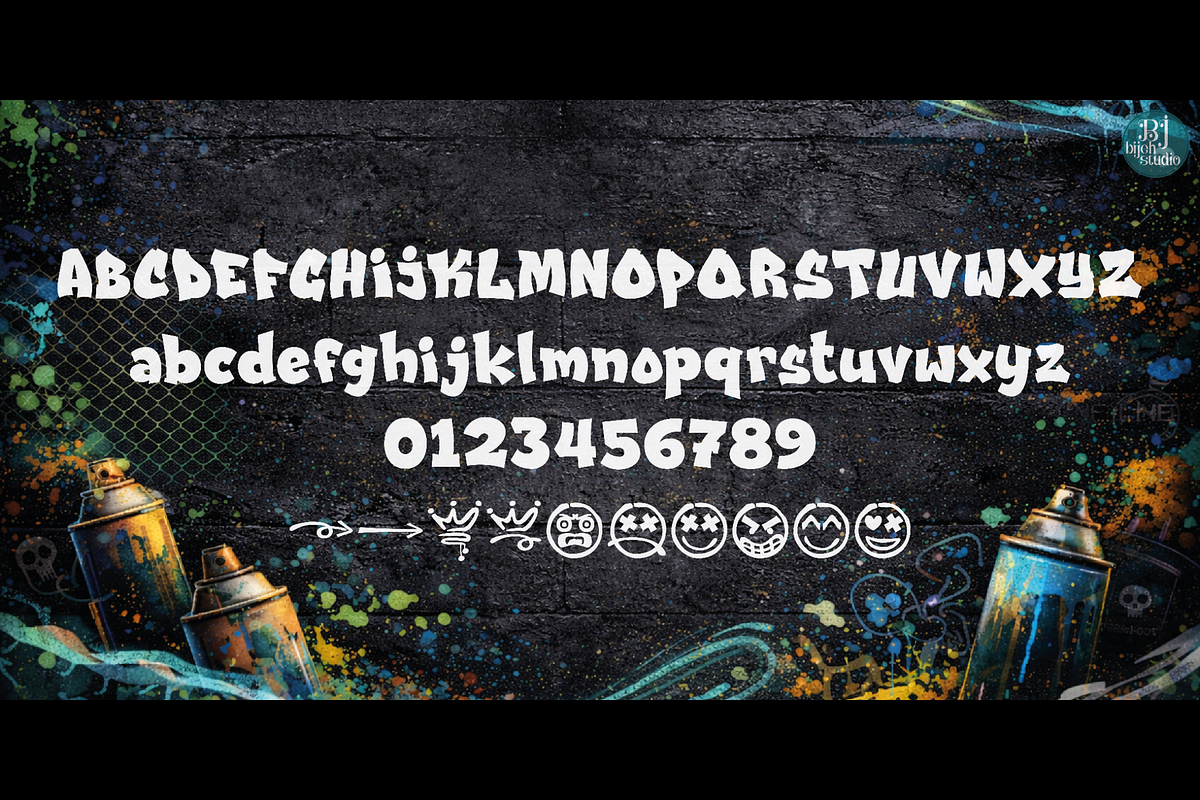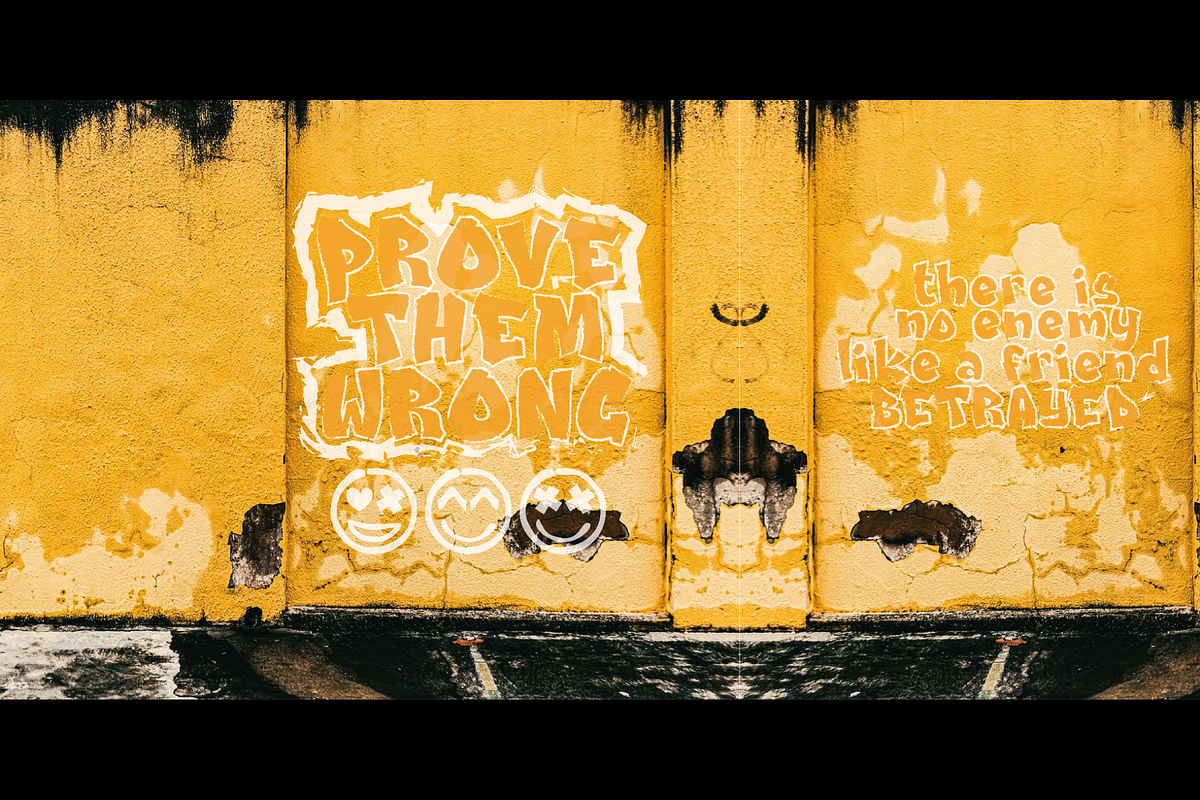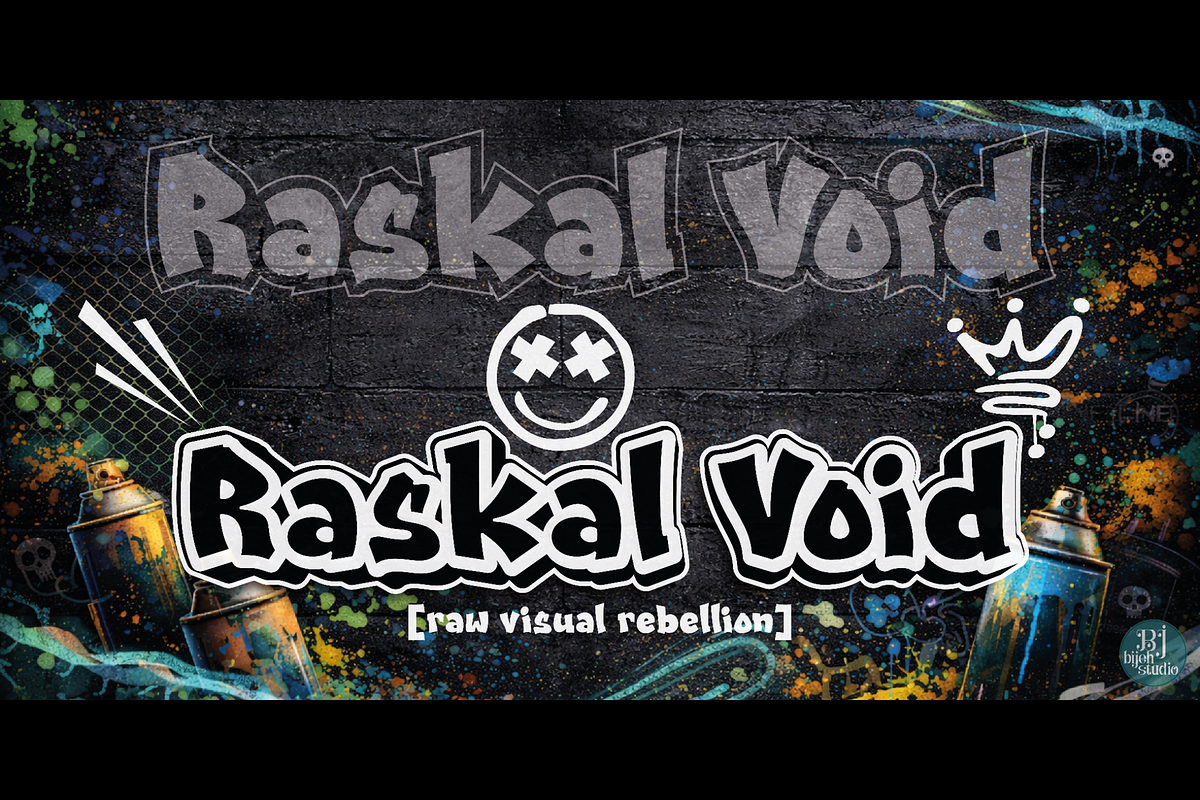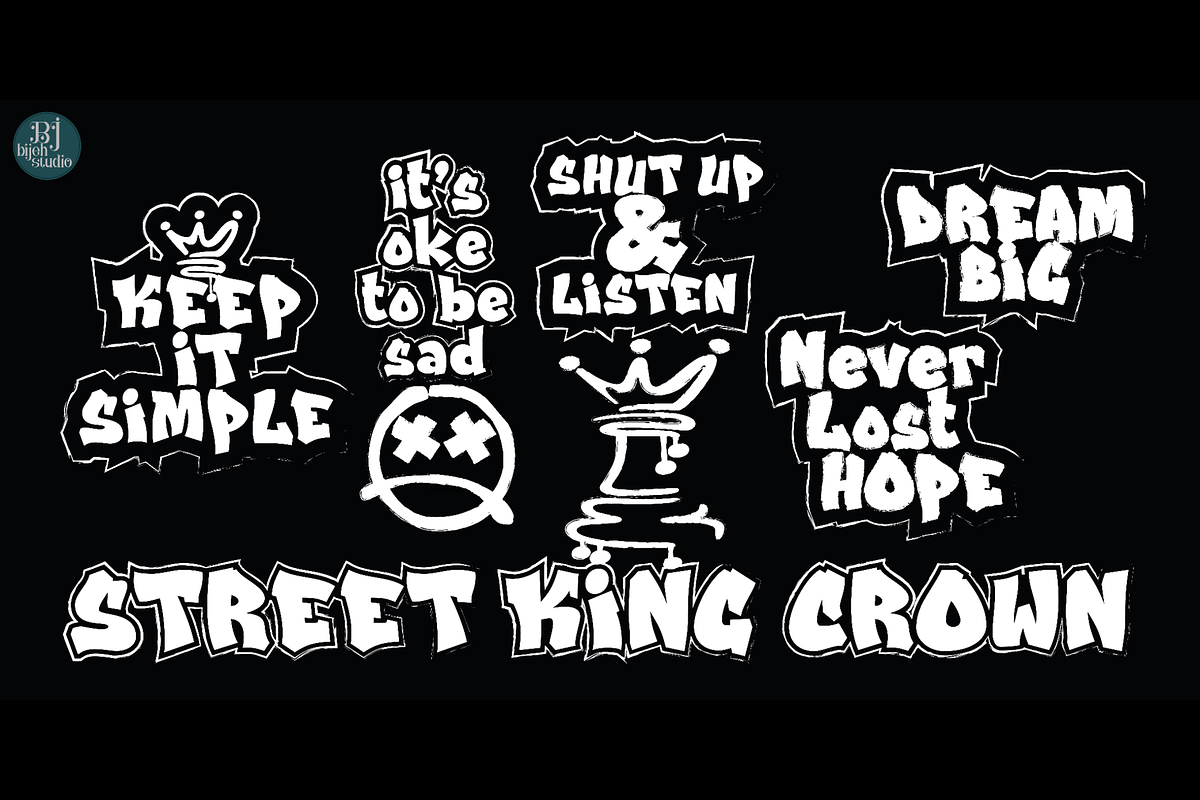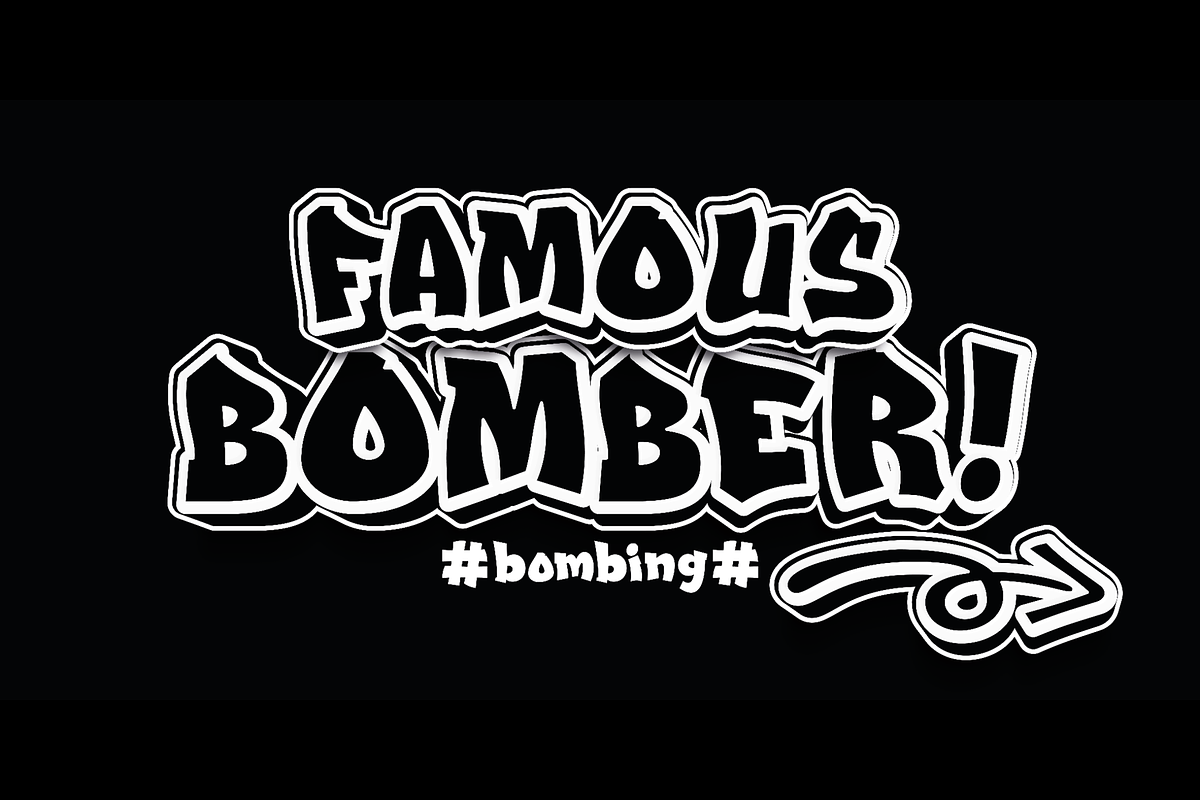
Raskal Void
Raskal Void is a graffiti typeface built with a wild, raw, and unapologetic street attitude. Its letterforms are constructed from uneven, aggressive strokes that echo spontaneous handstyle graffiti—bold, distorted, and highly expressive. The defining character of Raskal Void lies in its chaotic stroke construction and deliberately irregular negative spaces (voids). These voids are not merely empty areas, but active visual elements that create tension, rhythm, and an uncontrolled energy throughout the typeface. Legibility is not the priority-expression and attitude come first. Raskal Void embodies the spirit of modern vandalism, urban subcultures, and raw visual rebellion. It is designed to dominate the space it occupies and demand immediate attention.
Raskal Void is best used for: Music posters (hip-hop, punk, hardcore, underground scenes) Streetwear and urban branding Album covers and music artwork Urban events and experimental visuals Bold headlines with strong personality Category: Graffiti / Display Tone: Rebel, raw, chaotic, urban Mood: Loud, dirty, expressive, anti-mainstream